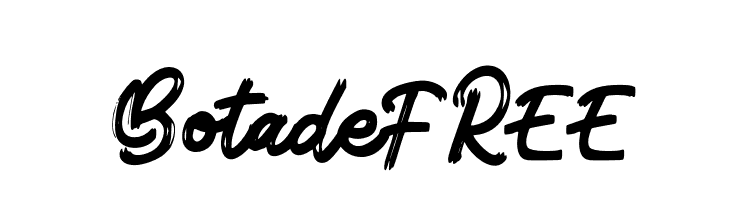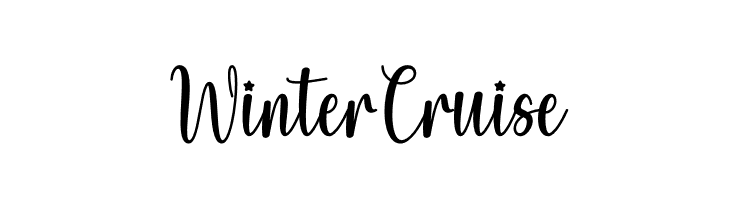
A flowing, cursive font with elegant loops and a handwritten style.
A flowing, cursive font with elegant loops and swashes, perfect for personal projects.
A bold, dynamic brush script font with fluid, interconnected strokes.
An elegant, flowing script font with decorative flourishes.
Photo-collage display font with reggae music iconography.
A dynamic and energetic script font with fluid, cursive letterforms.
An elegant serif font with an italic slant and moderate contrast.
A bold, angular font with a semi-italic slant and a modern, dynamic style.
A refined, elegant script font with flowing, interconnected letters and delicate strokes.
A bold, decorative serif font with exaggerated serifs and a playful style.